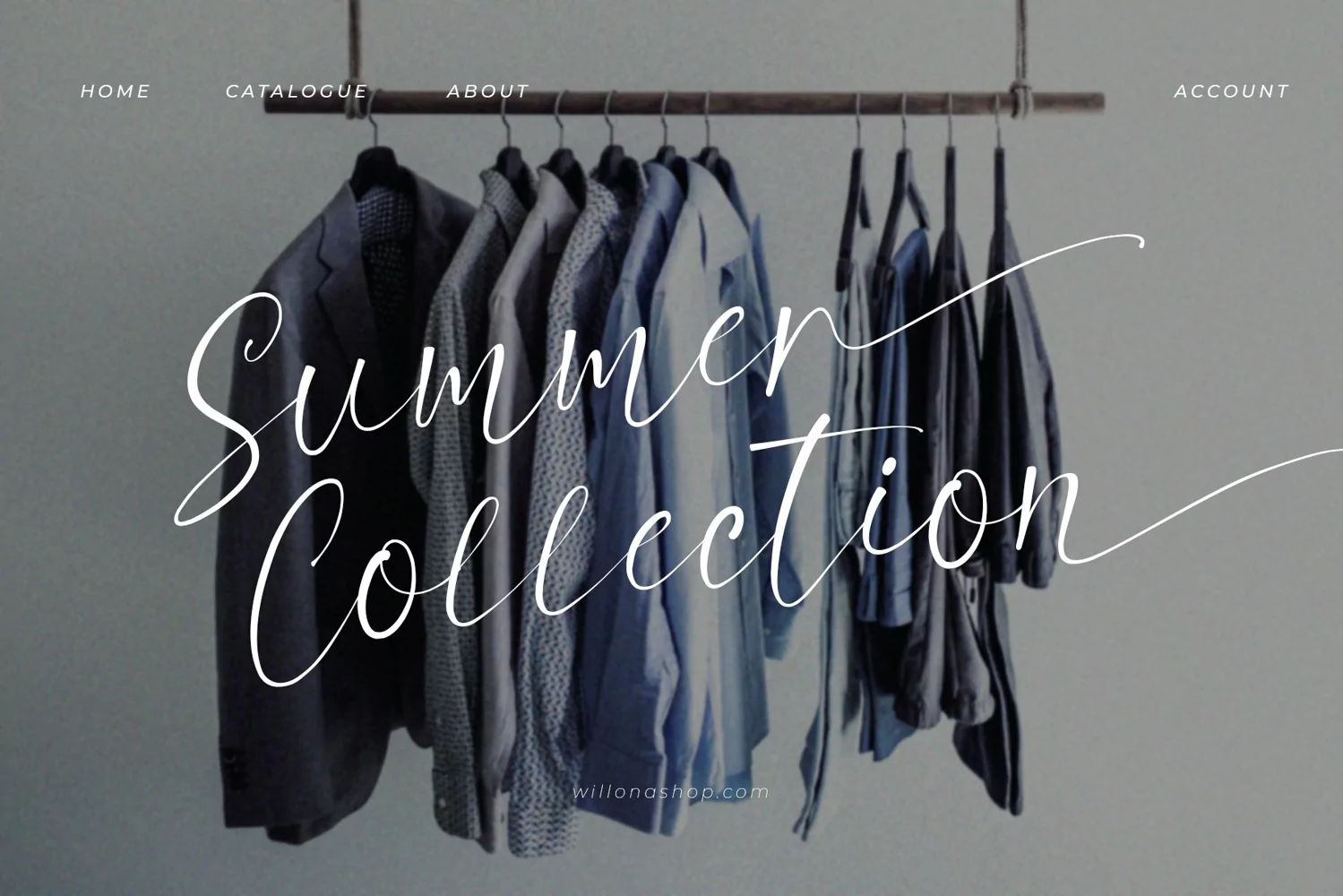
Horse Whisperer is a beautiful modern calligraphy font, with curves and lines are so soft that makes this font look pretty and realistic.
With 334 Charachters, Horse Whisperer is perfect to all your design project, like invitation card, product logo, quotes, notes, food brand logo and much more.
Horse Whisperer also supported with extra character that included in : Ligatures and Stylistic set 01 - Stylistic set 04 .
that will help you get beautiful style with your own creation.